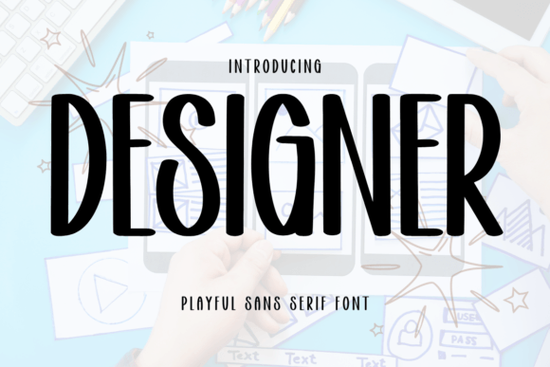
Looking for a clean, reliable font that works well across digital and print projects? Designer is a straightforward sans-serif typeface built for clarity and ease of use. It’s not flashy, but it gets the job done perfect when you need text that’s easy to read without distracting from your message.
What makes Designer font stand out?
Designed with balance in mind, Designer features consistent stroke widths and even spacing. Its neutral look fits naturally into many design contexts whether you're creating a simple flyer, branding materials, or user interface elements for websites and apps. The font maintains a modern feel while staying approachable, which helps keep your audience focused on what matters: your content.
You’ll appreciate how smoothly it integrates into layouts. It doesn’t demand attention, but it performs consistently under different conditions on screens, in PDFs, or when printed on paper. That reliability is especially helpful if you’re working on multiple formats at once.
Great for everyday creative work
If you’re a small business owner, print-on-demand seller, or hobbyist designer, this font can be part of your go-to toolkit. It pairs well with both bold graphics and minimalist designs. Try it with soft pastel backgrounds or dark text blocks you’ll find it adapts without losing legibility.
- Clear readability at all sizes, from headlines to body text
- Neutral tone that complements other design elements
- Simple structure that reduces design friction
- Wide language support for global communication needs
It’s also ideal for those who want something fresh but not too experimental. If you’ve grown tired of overly decorative fonts, Designer offers a refreshing alternative one that feels intentional without being loud.
Where can you use Designer font?
From social media posts to packaging labels, this font holds up across platforms. For example:
- Branding for local cafes or boutiques
- Product descriptions on Etsy or Shopify stores
- Event invitations or newsletters
- Infographics and presentation slides
Its versatility means you won’t need to switch between several fonts just to maintain consistency. A single typeface can serve multiple purposes, saving time and reducing visual clutter.
How does it compare to similar fonts?
If you’ve explored other sans-serifs like Japandi or Sugar Magic, you’ll notice Designer leans more toward utility than mood. While Japandi brings calm, earthy vibes and Sugar Magic adds playful charm, Designer stays grounded in function. It’s less about atmosphere and more about delivering clear communication exactly what many designers need when speed and precision matter.
Each has its place, but Designer remains a dependable choice when simplicity is key.
Final thoughts
If you're looking for a no-nonsense font that delivers strong performance across projects, Designer is worth adding to your collection. It’s not trying to impress it’s here to help you communicate clearly and professionally.